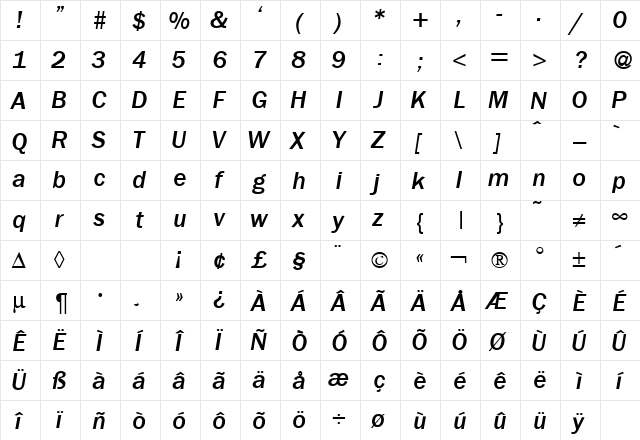
FranklinGothicNewMedium RegularItalic
Design Context for FranklinGothicNewMedium Typeface
FranklinGothicNewMedium has the quiet confidence of well-executed sans-serif typography: versatile, unobtrusive, and dependable at any size. The dynamic lean of this cut emphasises speed and emphasis in any layout.
Font Pairing: Works well alongside a characterful serif or display font that can carry the expressive load while FranklinGothicNewMedium handles the functional copy.